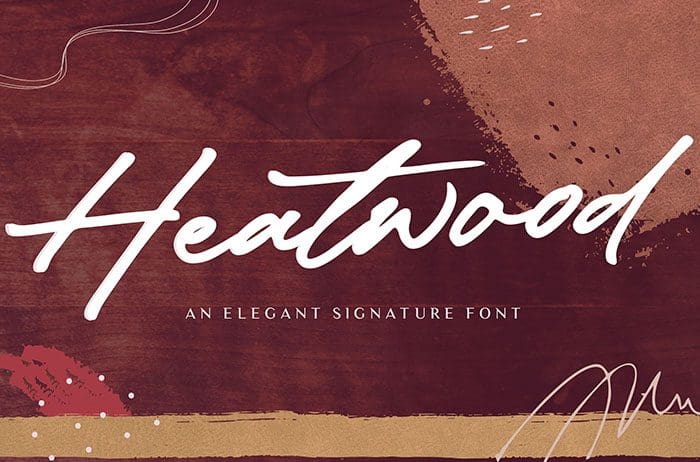
Heatwood Signature Font
Free Heatwood signature font is inspired by classic typography. Whether you’re looking for fonts for Instagram or calligraphy scripts for DIY projects, Heatwood will turn any creative idea into a true piece of art! Designed this font by Balpirick Studio. You can also search more free Signature Fonts. We hope you enjoy this font.